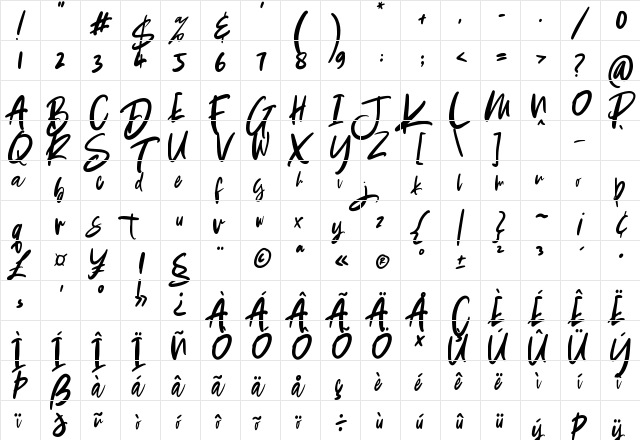
Baby Boomer Regular Font Preview
Baby Boomer Regular
Baby Boomer Regular Font Details
| Foundry | Dirtyline Studio |
| Designer | Hendra Maulia |
Design Context for Baby Boomer Typeface
Baby Boomer is a composed and adaptable typeface that performs quietly and consistently across a wide range of design contexts.